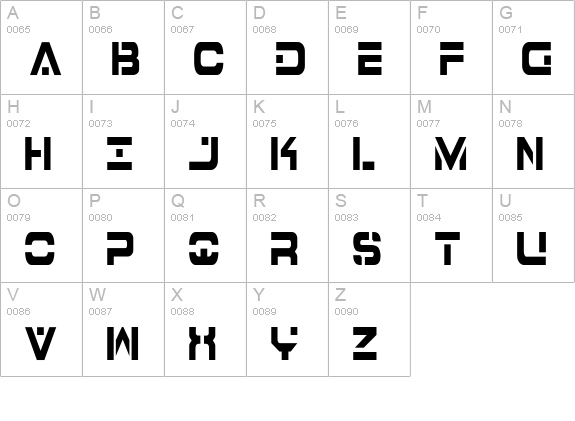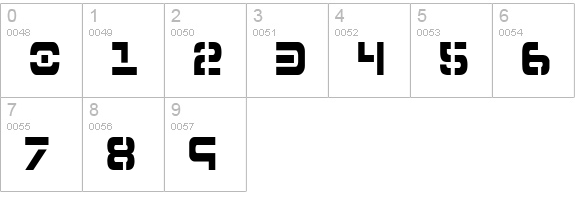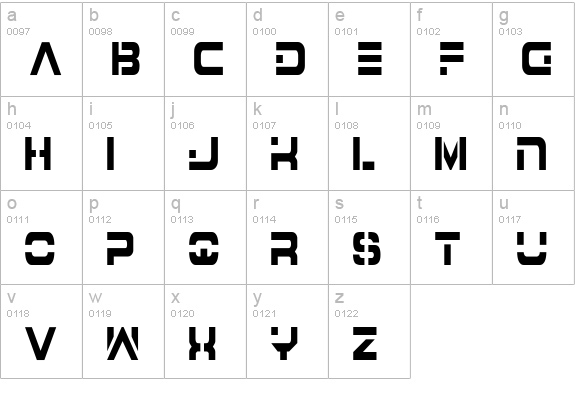
7th Service Condensed is a distinctive, condensed-width variant in the 7th typeface family \xE2\x80\x94 well suited to design and typography projects.
7th Service Condensed font is a sleek and modern typeface that exudes elegance and sophistication. With its condensed style, this font is perfect for creating eye-catching headlines, logos, and branding materials. The clean lines and sharp angles of 7th Service Condensed make it a versatile choice for a wide range of design projects. Best of all, 7th Service Condensed font is available for free download at FontsMarket.com. Whether you're a professional designer or just looking to add a touch of style to your personal projects, this font is a fantastic choice. Don't miss out on the opportunity to enhance your designs with the timeless appeal of 7th Service Condensed font, now freely available for download.